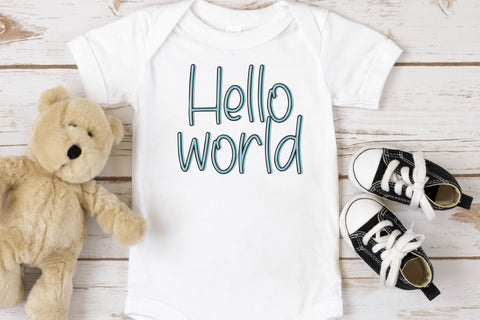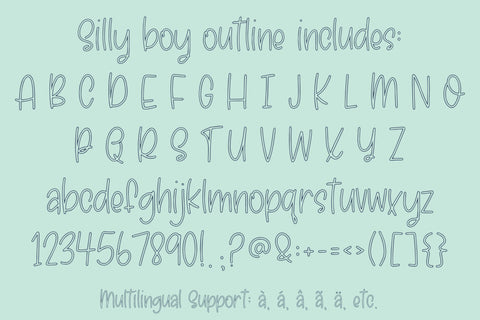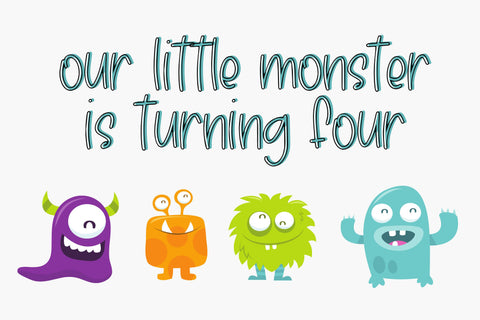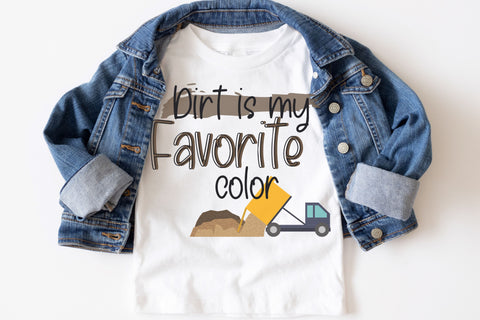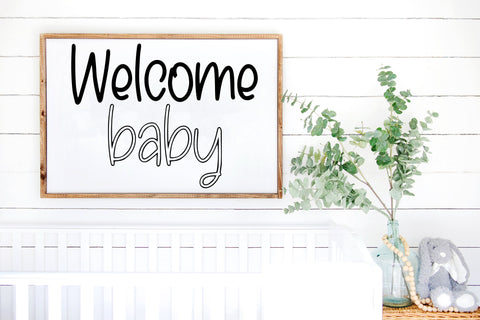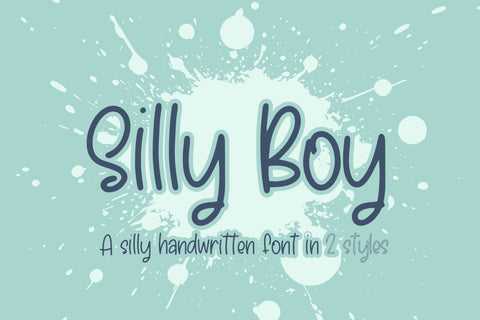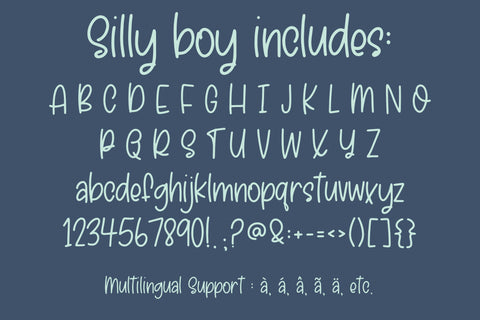
Silly Boy Font Duo, Fun Handwritten Font for Cricut,
Introducing Silly Boy Font duo, a set of fun Handwritten Fonts for Cricut - a charming and fun addition to your creative projects! This unique handwriting font is perfect for all your Cricut designs, making it a must-have for craft enthusiasts. With its playful and fun handwriting style, it adds a touch of whimsy and personality to any project. Whether you're crafting cards, journaling, or designing SVG files, this font will bring your creations to life. Get ready to impress with our amazing Cricut font collection and unlock endless possibilities for your artistic endeavors!
Silly Boy Solid
Silly Boy Outline